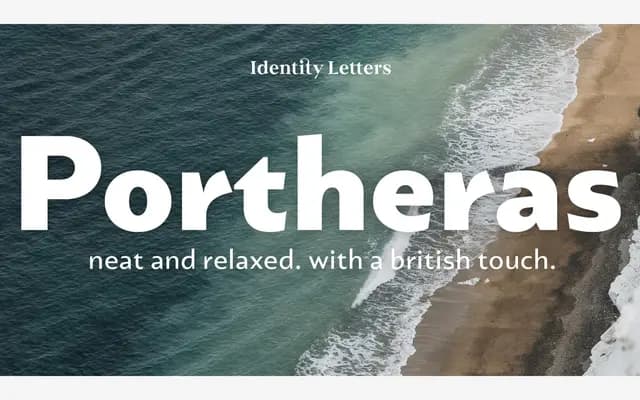
A fairly wide humanist sans with a relaxed disposition, named after a Cornish beach and built around British design tradition with an informal edge.
Sixteen styles span Thin to Black with matching italics that fall somewhere between oblique and true italic, giving the family a character that is approachable without being casual in a careless way. Each style carries 780 glyphs covering small caps, multiple figure sets including old-style figures at mid-cap height, three stylistic sets and an extensive arrow collection. The low x-height and slightly wider stance set it apart from more utilitarian humanist sans designs.
Identity Letters explicitly describe Portheras as a humanist sans; its low x-height, informal character and italics that sit between oblique and true italic confirm that classification.